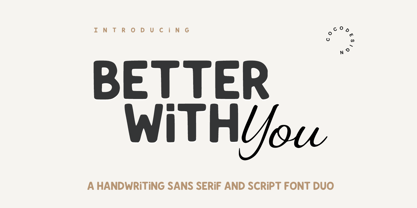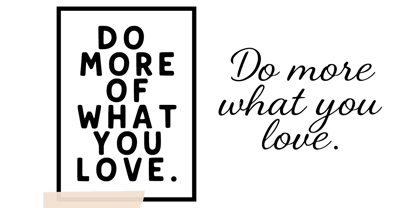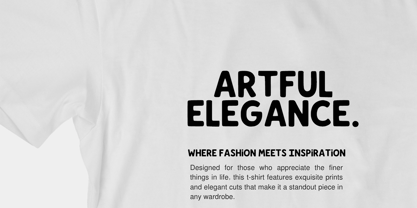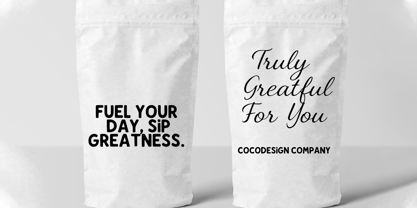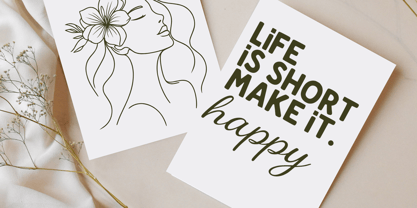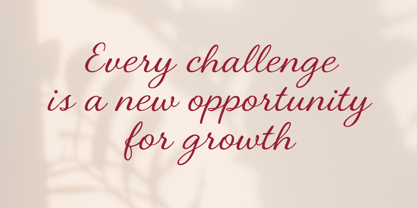
Better with you
by Cocodesign
The Better with you Font Family was designed by Muhammad Zaini and published by Cocodesign. Better with you contains 2 styles and family package options. More about this family
Better With You is a versatile font duo that blends the warmth of handwriting with a modern touch. It comes in two contrasting yet perfectly harmonious styles:
✅ Sans Serif Handwriting – bold uppercase letters with a relaxed, clean, and playful look. Perfect for headlines, logos, and designs that need a confident yet friendly feel.
✅ Script Handwriting – smooth, natural strokes that feel like real handwriting—feminine and elegant. Ideal for signatures, quotes, invitations, and creative projects.
Designers: Muhammad Zaini
Foundry: Cocodesign